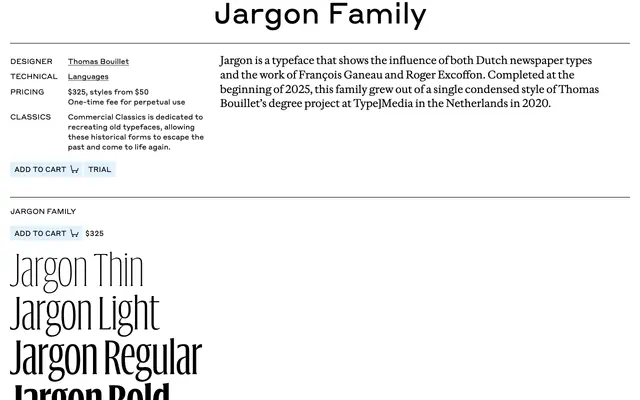
Jargon
Commercial Type · Thomas Bouillet · 2025
A humanist sans from Thomas Bouillet that channels Dutch newspaper types alongside Ganeau and Excoffon, with six weights and matching italics.
A humanist sans designed by Thomas Bouillet for Commercial Type, completed at the start of 2025 and developed from a single condensed style drawn for his Type]Media degree project in 2020. Six weights run from Thin and Light up to Bold, Black and Ultra with matching italics. Jargon blends Dutch newspaper rationality with the warmer French character of Francois Ganeau and Roger Excoffon, sitting comfortably in editorial, brand and publishing work with a defined voice.
Commercial Type position Jargon as a typeface shaped by Dutch newspaper types and the work of Francois Ganeau and Roger Excoffon, completed in early 2025 and grown from a single condensed style Thomas Bouillet drew during his Type]Media degree in 2020.